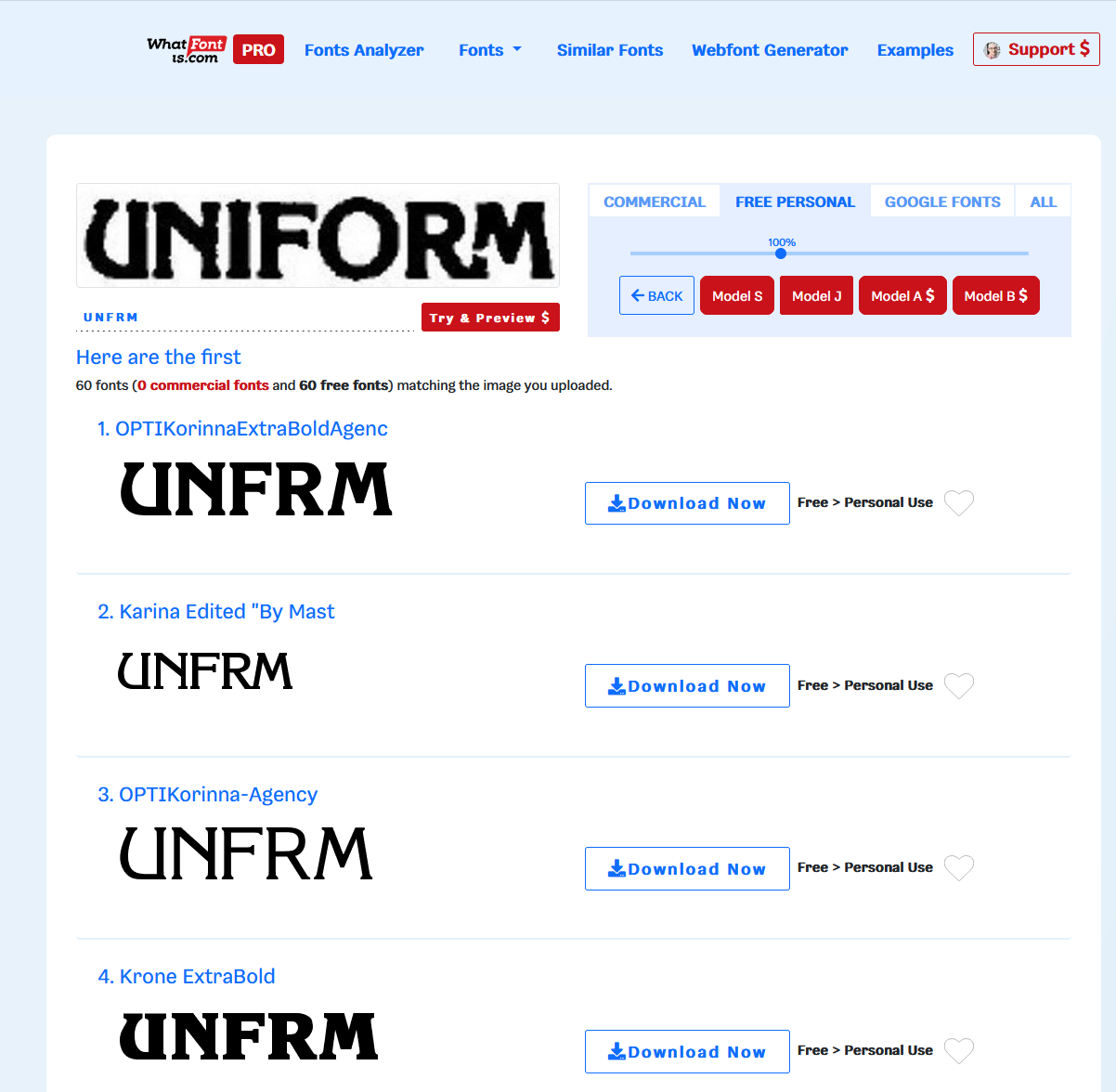
Headings font for (U.S.) Uniform Federaal Accessibility Standards
I have a poor quality scan of a 1984 government accessibility standards document. As a scan, the text is not searchable. I haven't been able to located a PDF with better quality and/or searchable, so I'm looking at reproducing the document to create a searchable copy and I would like to make it as close a reproduction as possible. The document headings aren't in Times New Roman or Arial (or Helvetica), and I can't figure out what the font is. Initially I thought American Uncial, but now I don't think so. Any assistance would be appreciated.
[Edit to add] Upon closer inspection, it appears that the entire document (not just the headings) is in this typeface. That makes it even more important to try to match the typeface, if possible.
Update: On my fourth font finder attempt, I found several matches, including two that are free for personal use. Perfect (since I have no plans to distribute or publish this document). So I downloaded it and installed it, in TTF format. I then opened the document in Microsoft Word and changed the font to Karina. On screen, the font changed -- but not to anything that even remotely resembles the font I wanted, or Karina.
This is what I found for matches: